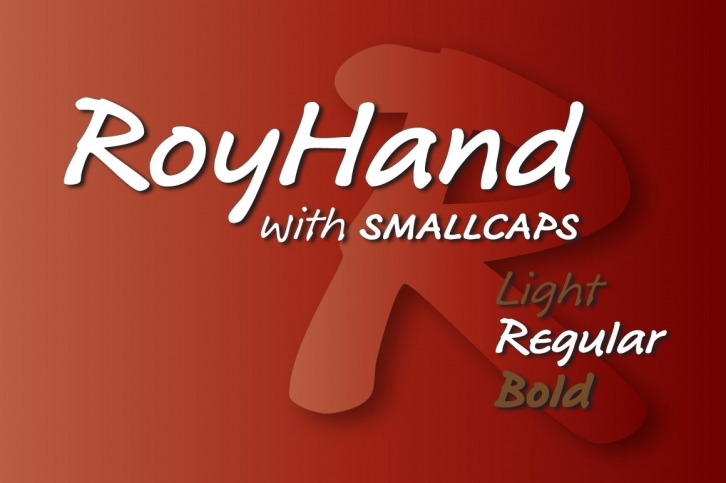
Say "hey" to RoyHand Regular, a member of the RoyHand OpenType font family by the wonderfully talented English designer and illustrator Roy Preston. As the name would suggest, RoyHand is based upon the handwriting of Roy himself. It is a casual, friendly typeface, reminiscent of comic book lettering. And it boasts an impressive character set! Besides supporting most Western European languages, it also has a full compliment of smallcaps, as well as three sets of figures, old style, lining, and tabular lining! The family has three weights, Light, Regular, and Bold, making it suitable for many everyday uses, and more!